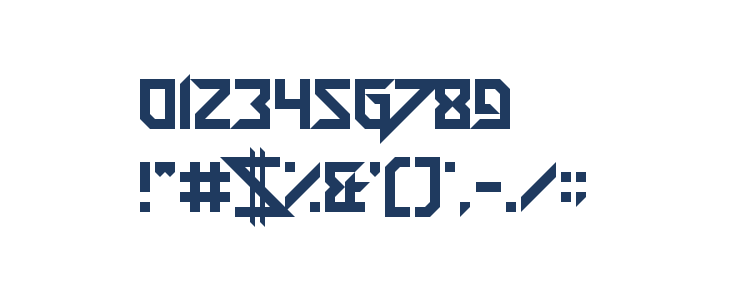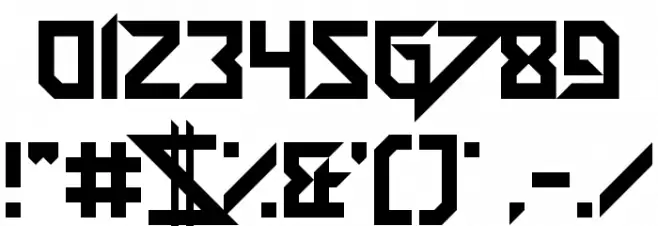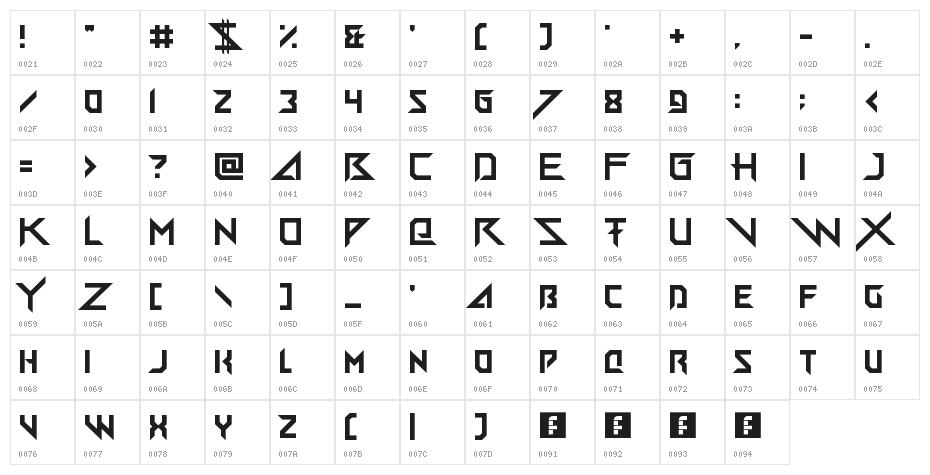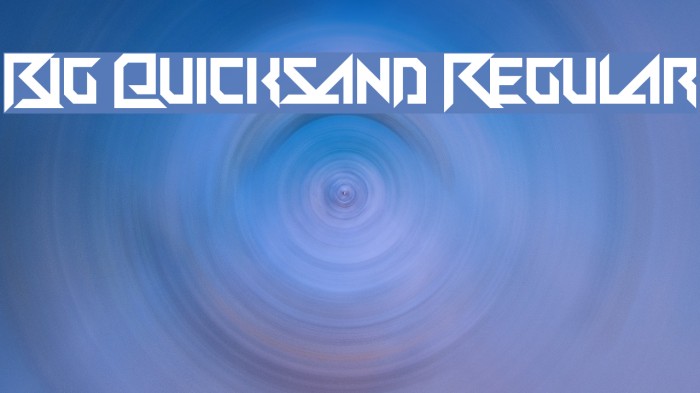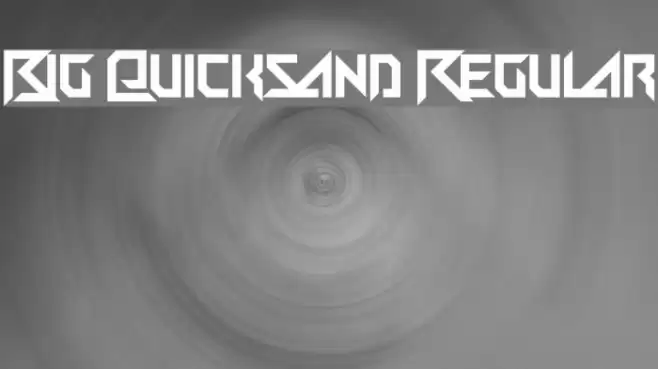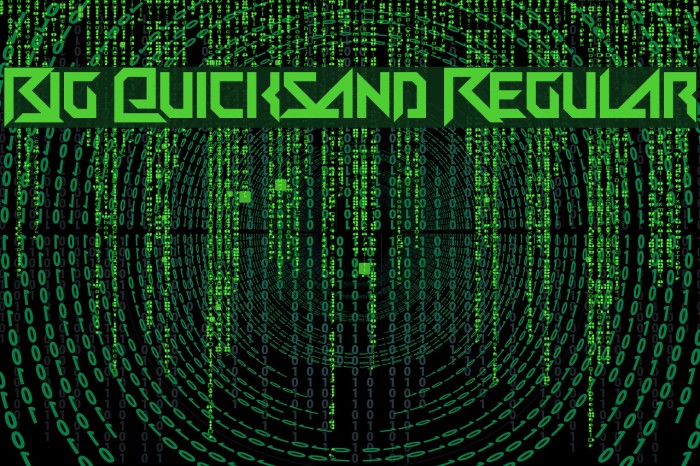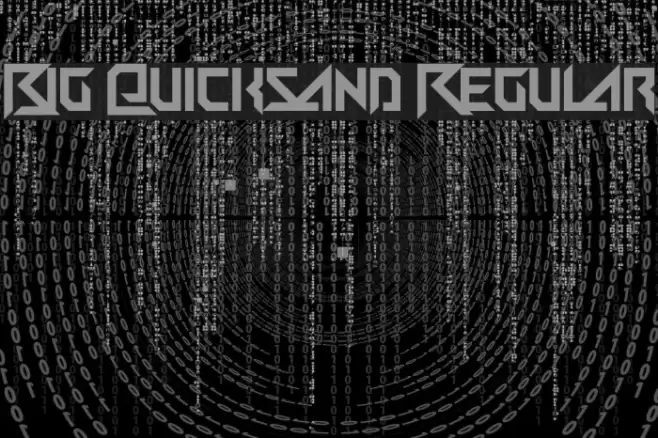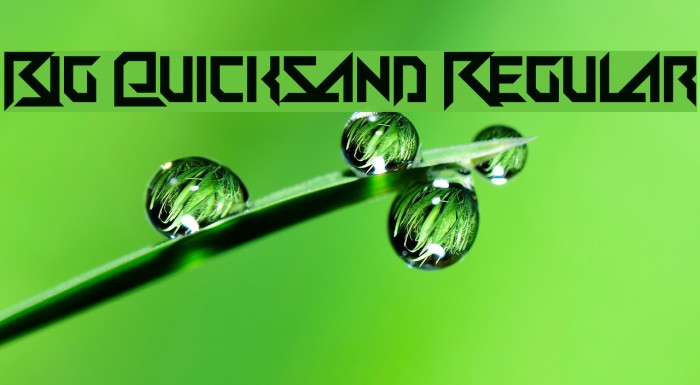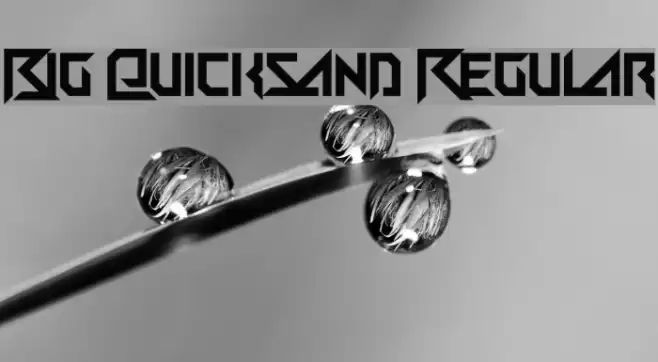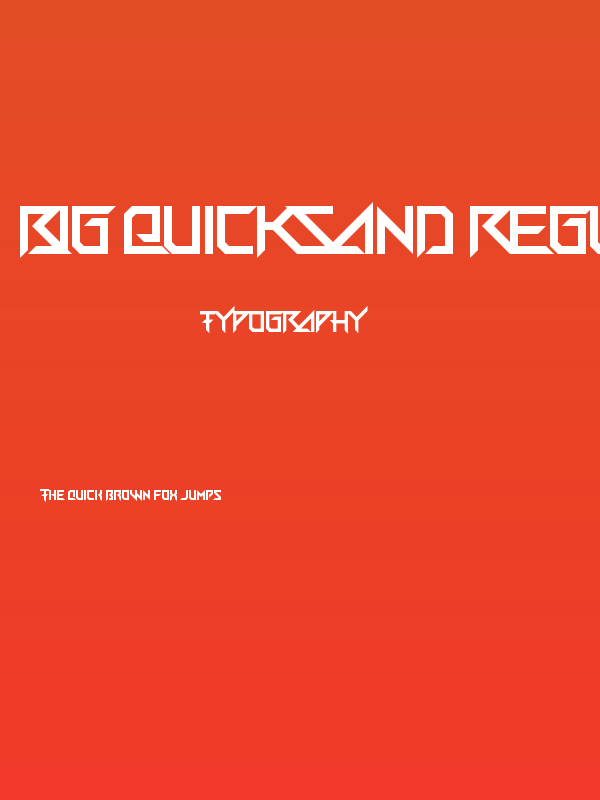
Big Quicksand Regular Font
Big Quicksand Regular Description
This font features a bold, geometric design with sharp angles and a futuristic aesthetic. The characters are constructed with straight lines and pointed edges, creating a dynamic and edgy appearance. The uppercase and lowercase letters maintain a consistent style, emphasizing symmetry and uniformity. Numbers and special characters follow the same angular design, ensuring a cohesive look across all elements. The font's unique style makes it stand out, suitable for projects that require a modern and striking visual impact.
| Overall Style | Futuristic, Modern |
| Proposed Projects | Ideal for sci-fi themed designs, video game graphics, posters, and branding that requires a modern, edgy feel. |